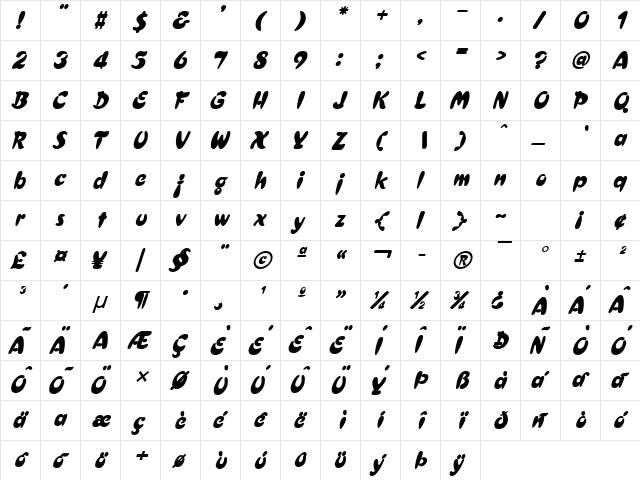
Crest Heavy Italic
Design Context for Crest Heavy Typeface
Crest Heavy is a composed and adaptable typeface that performs quietly and consistently across a wide range of design contexts. The dynamic lean of this cut emphasises speed and emphasis in any layout.
Pro Tip: Try Crest Heavy for annotation and caption copy alongside an upright companion — the contrast in angle creates a dynamic but ordered typographic system.